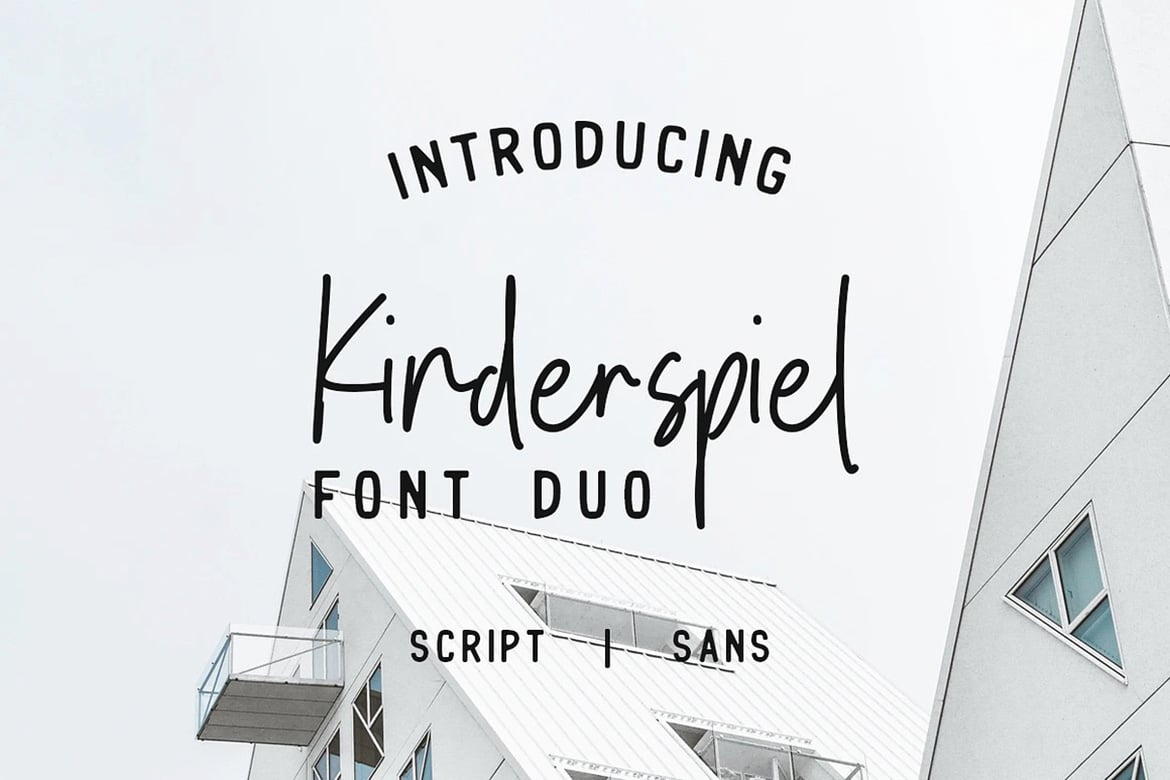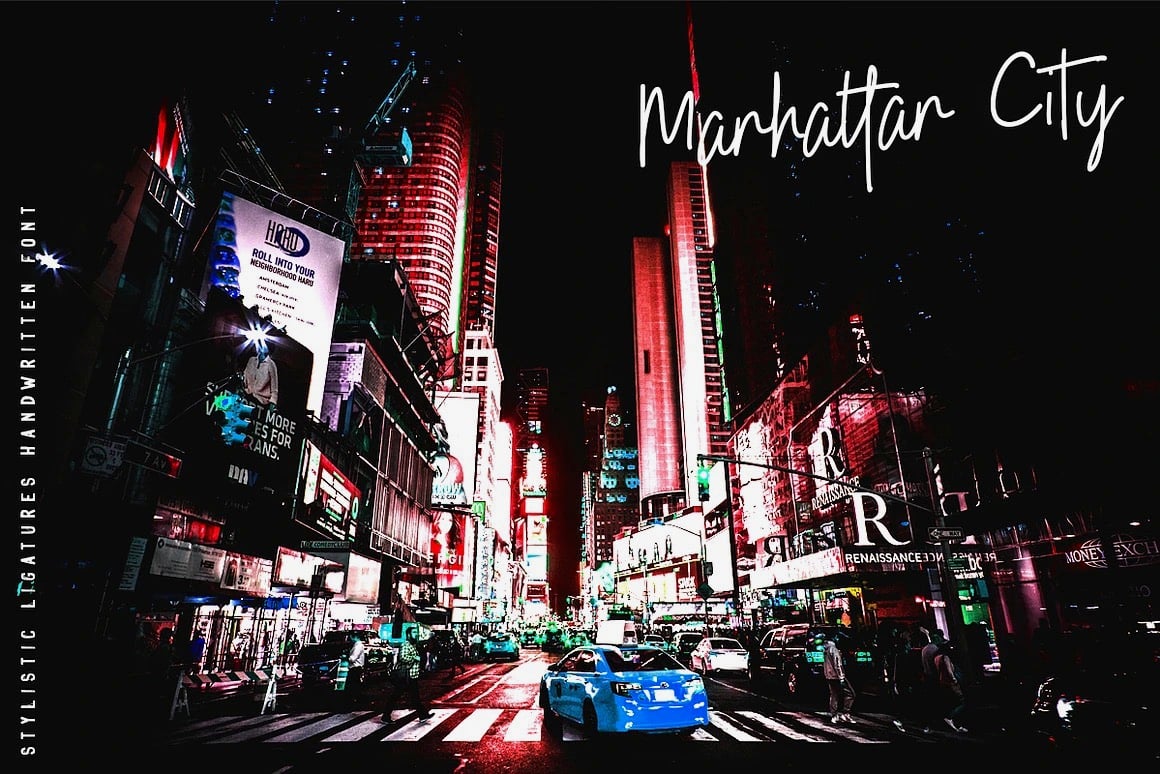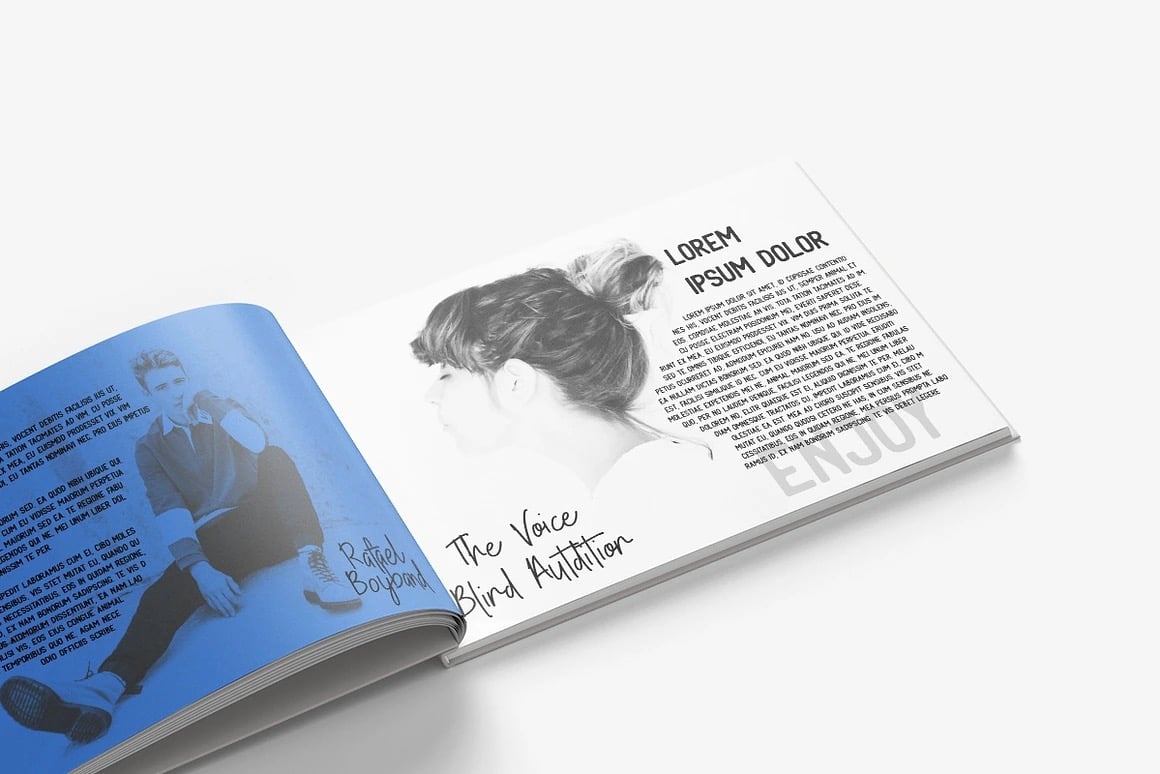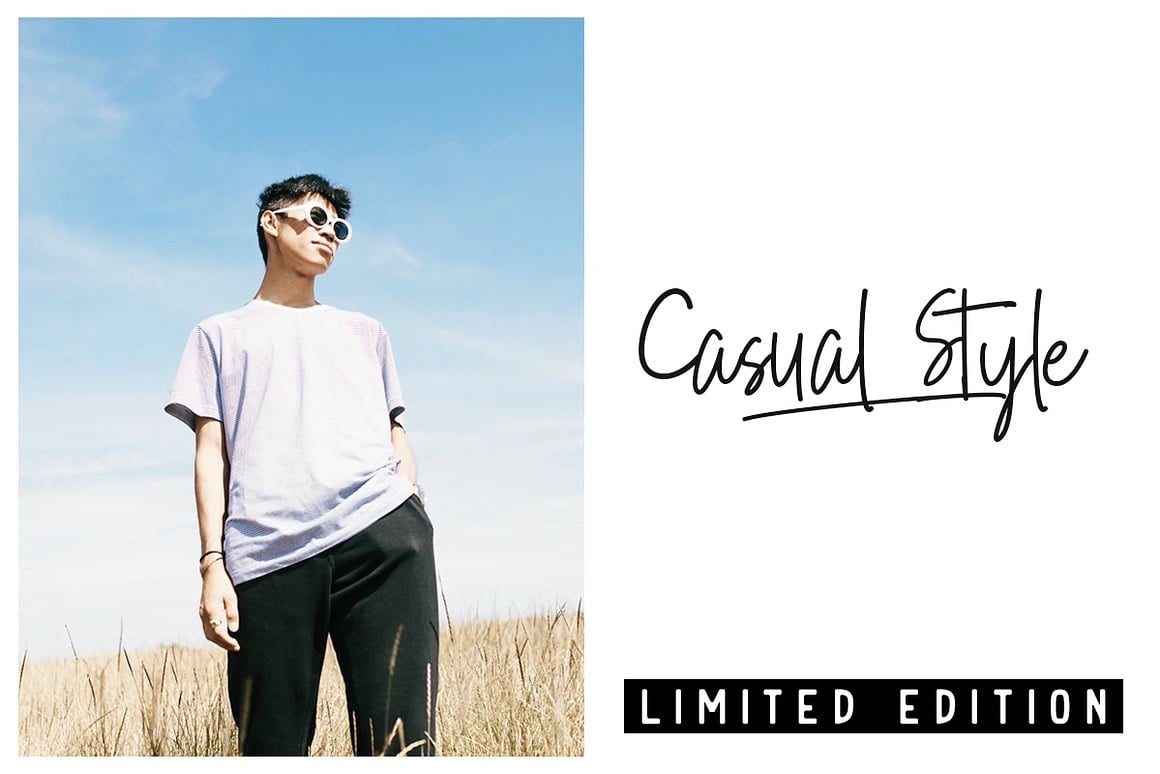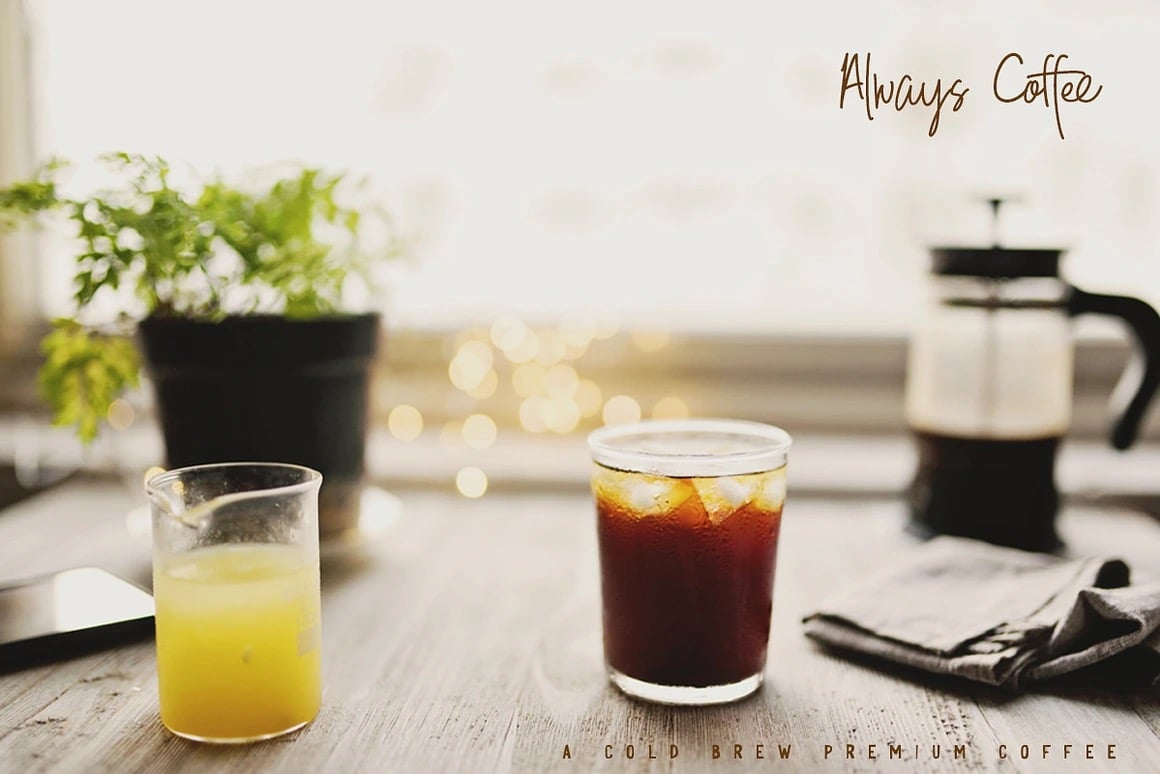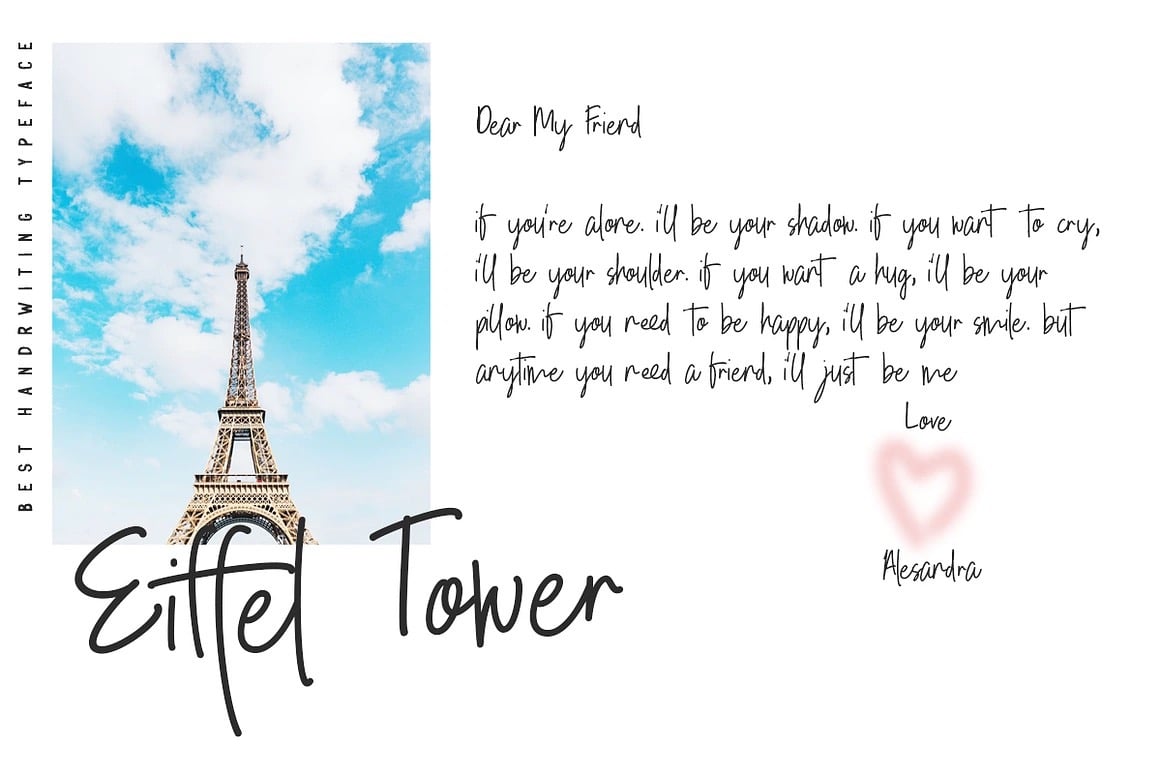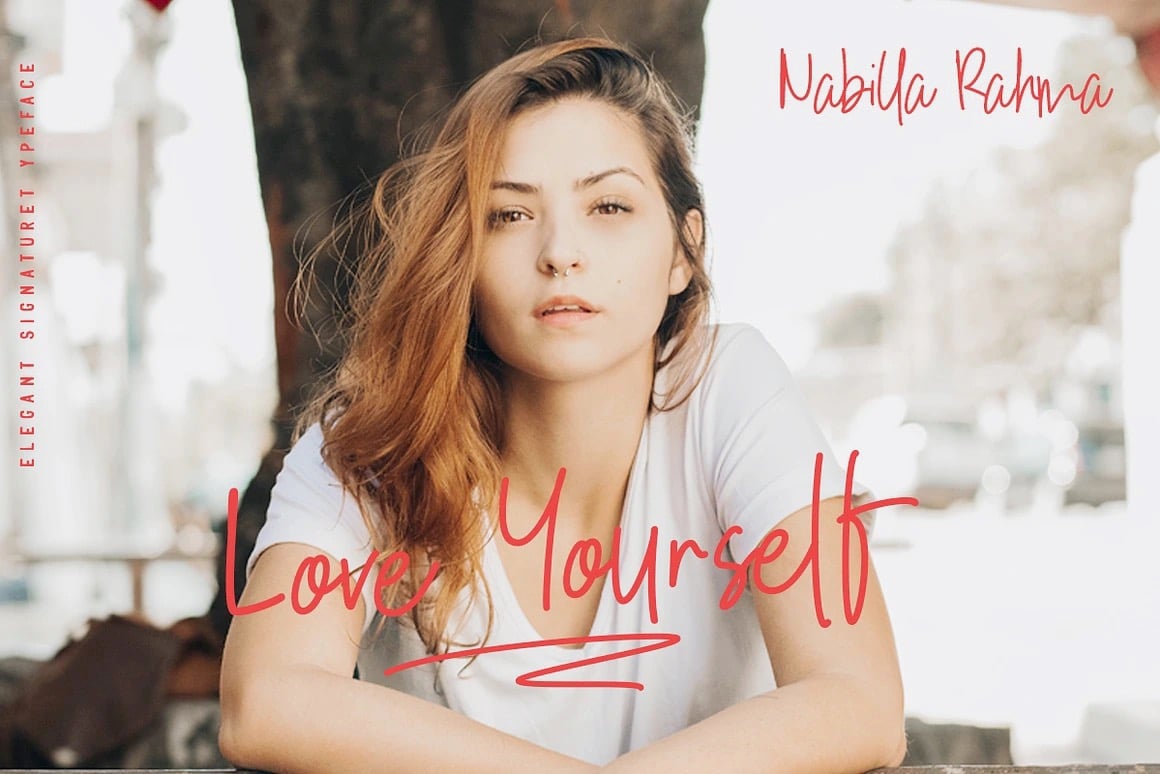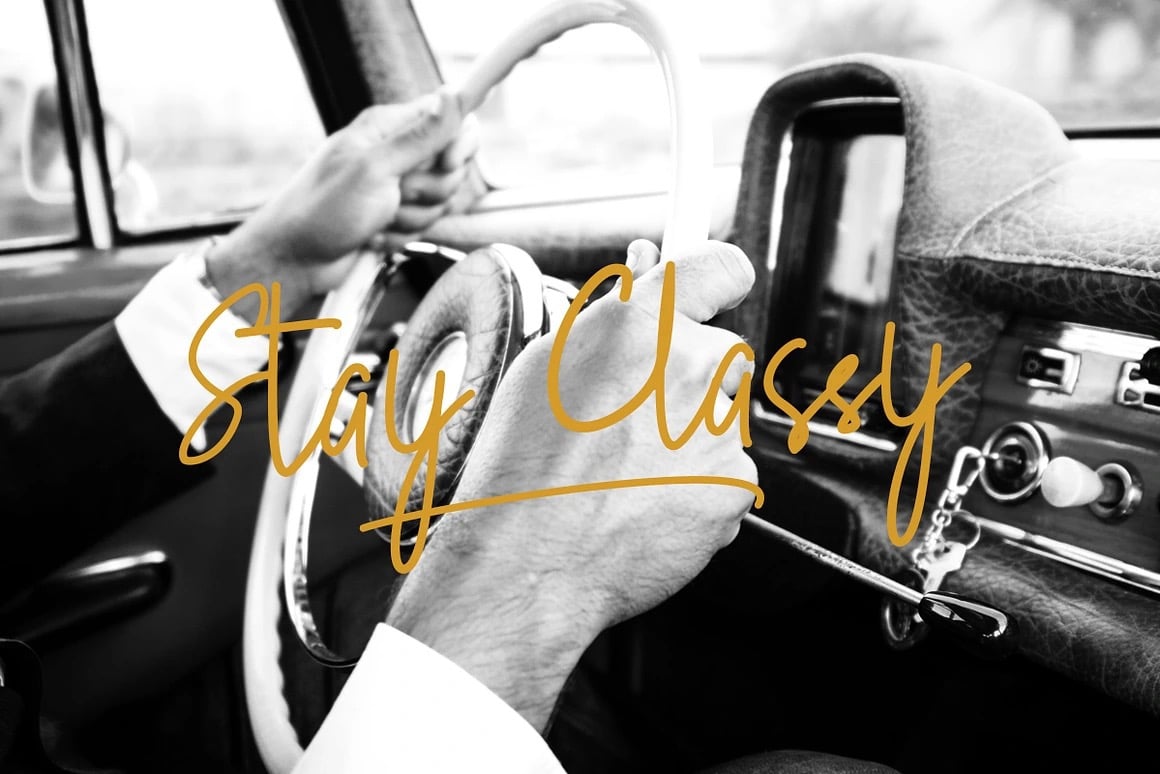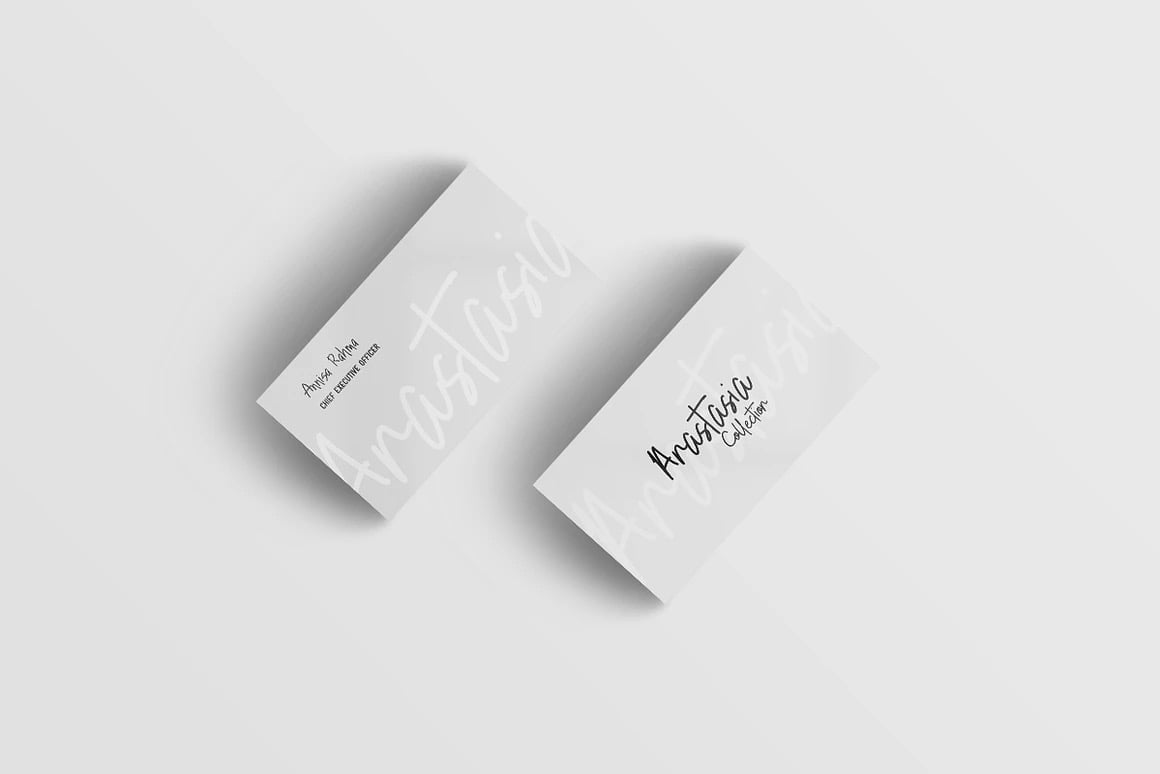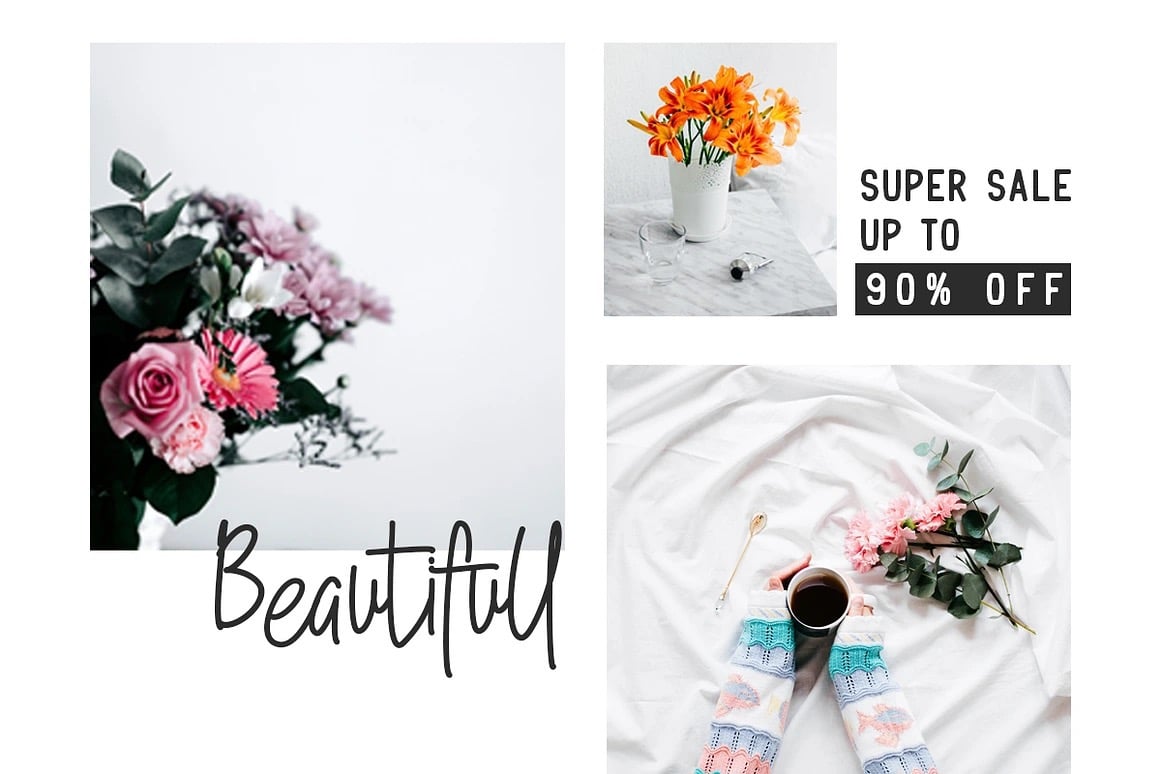
Kinderspiel – Font Duo
Introducing the New Font Duo with Stylistic Typeface Kinderspiel. A Typface with handwriting and elegant signature script and trendy all caps sans serif with rough version. Kinderspiel is perfect to creating typography and graphic design project like Invitation, Card, Apparel, Postcard, Givingcard, Logotype, Book Cover, etc
This Font Duo is packaged with extra Opentype. The Script includes some alternate and stylistic ligature and swash extras. The Sans includes Rough version make your design look classy
Kinderspiel Features
- Alternate Glyphs Script
- Swash